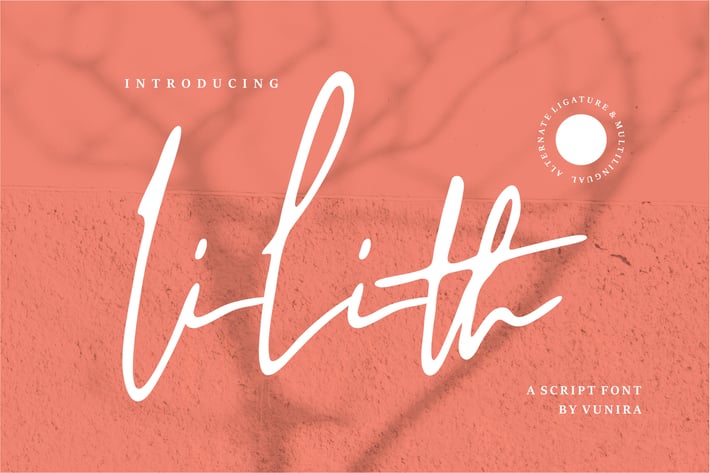
Lilith | A Script Font
Lilith | A Script Font with a calligraphy style, So beautiful on invitation like greeting cards, branding materials, business cards, quotes, posters, and more!